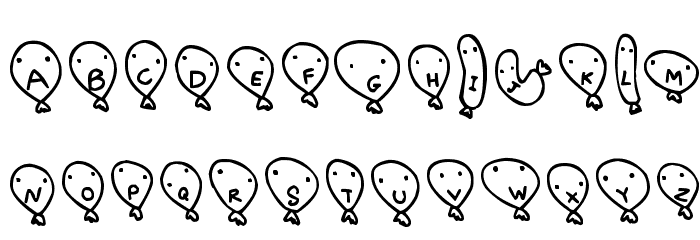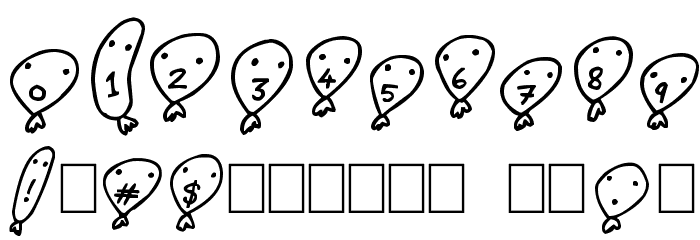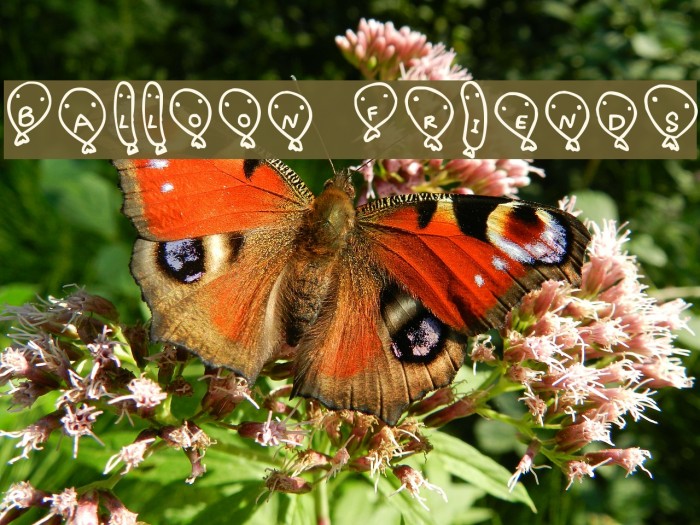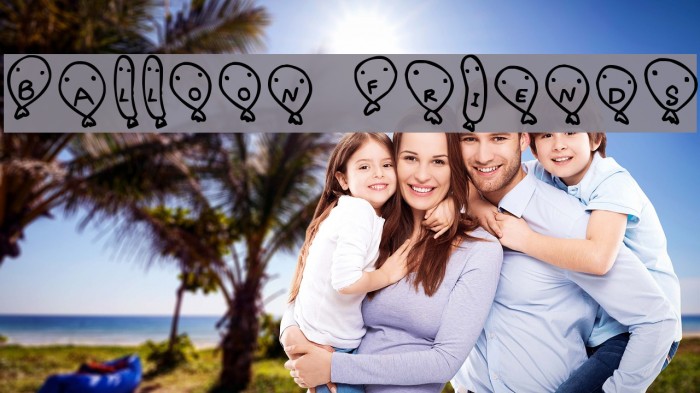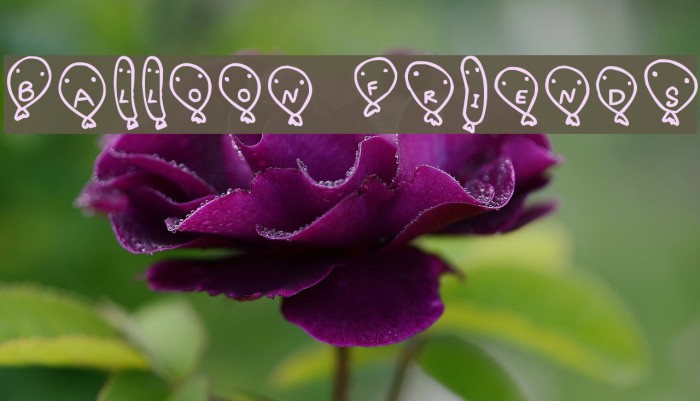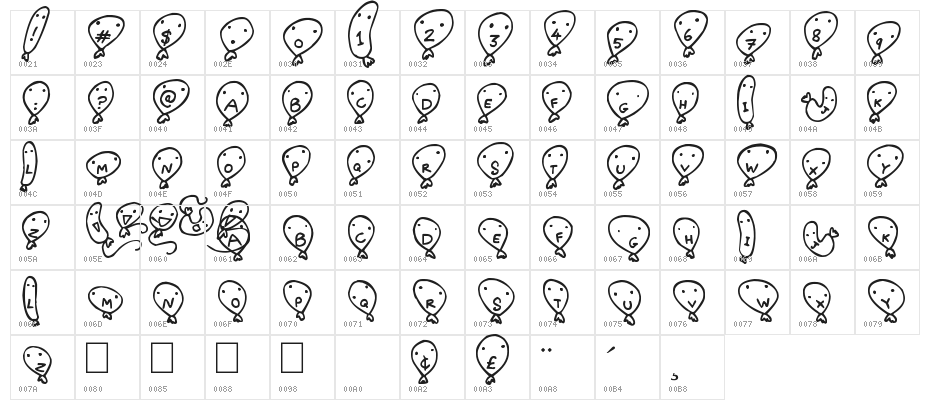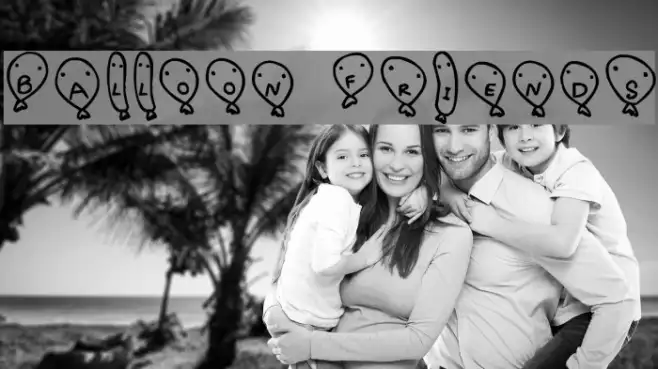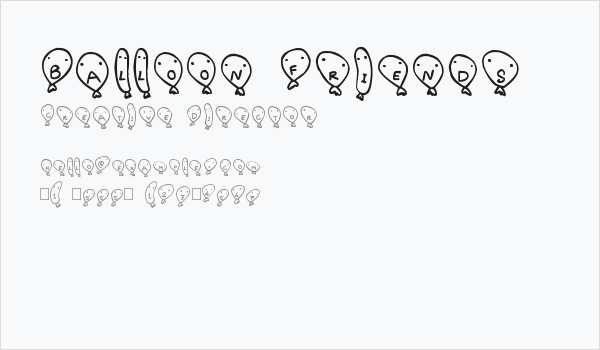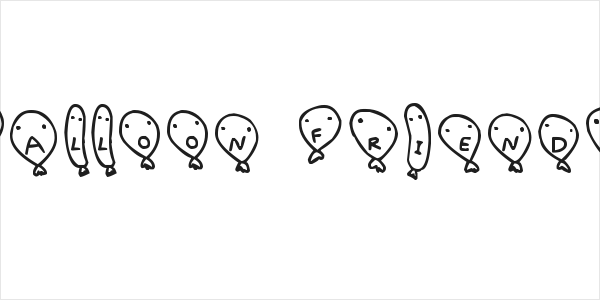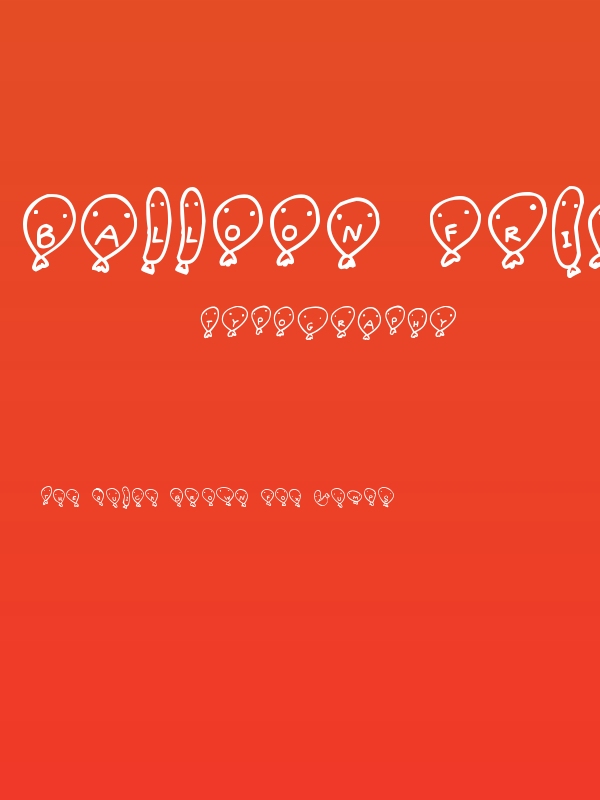
Balloon Friends Font
This playful and whimsical font features characters designed as balloons, each with a small knot at the bottom, giving the impression of floating letters. The rounded, bubbly shapes of the letters and numbers add a sense of fun and lightheartedness. The font includes both uppercase and lowercase letters, as well as numbers and a selection of special characters. The style is consistent throughout, with each character maintaining the balloon motif, complete with a slight tilt and playful expression. This font is perfect for projects that require a joyful and informal touch, such as children's party invitations, playful branding, or any design that aims to evoke a sense of fun and celebration.
A playful balloon-themed font with rounded, bubbly characters.
- Font: Balloon Friends
- Proposed Projects: Ideal for children's party invitations, playful branding, and fun-themed designs.
- Overall Style: Playful